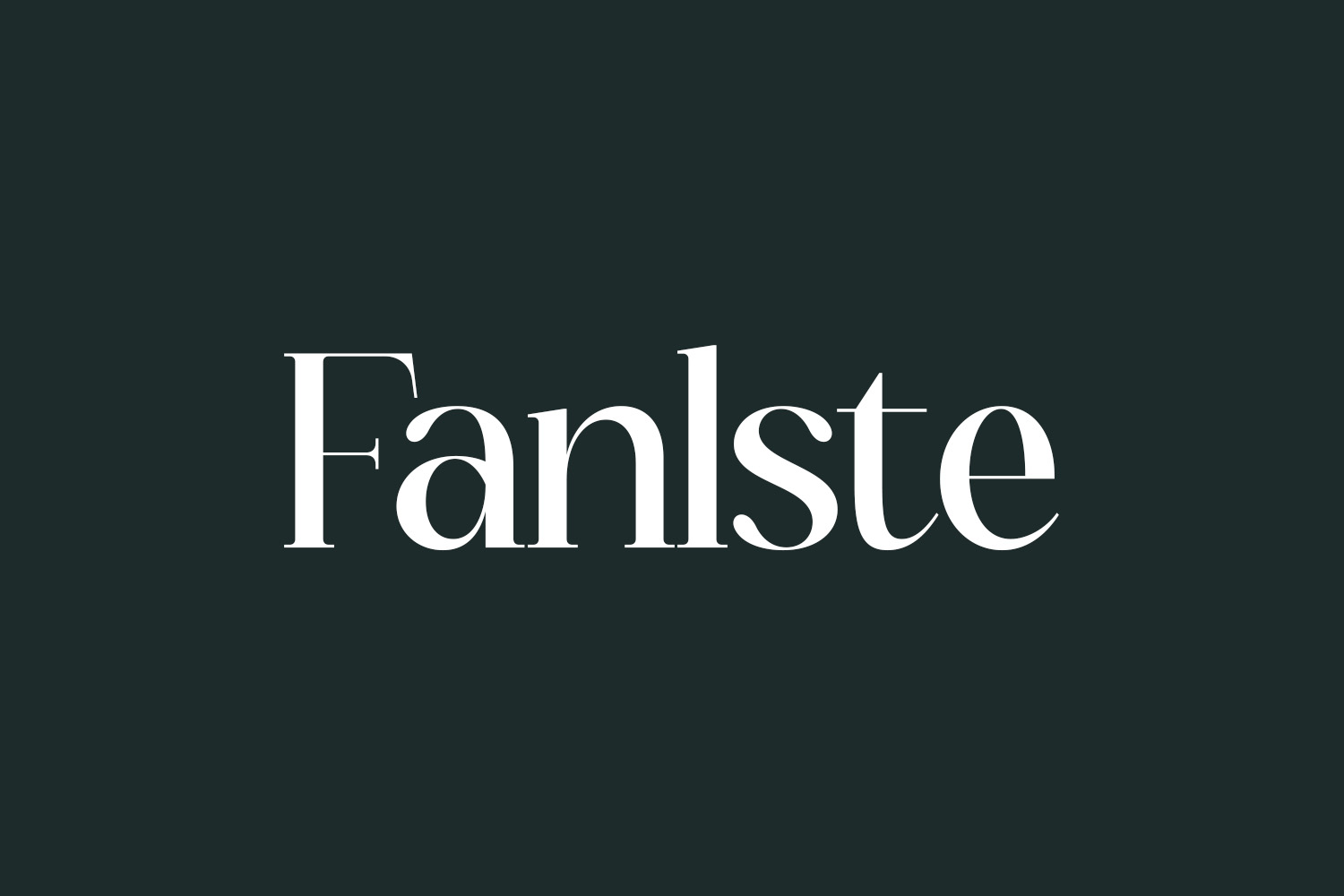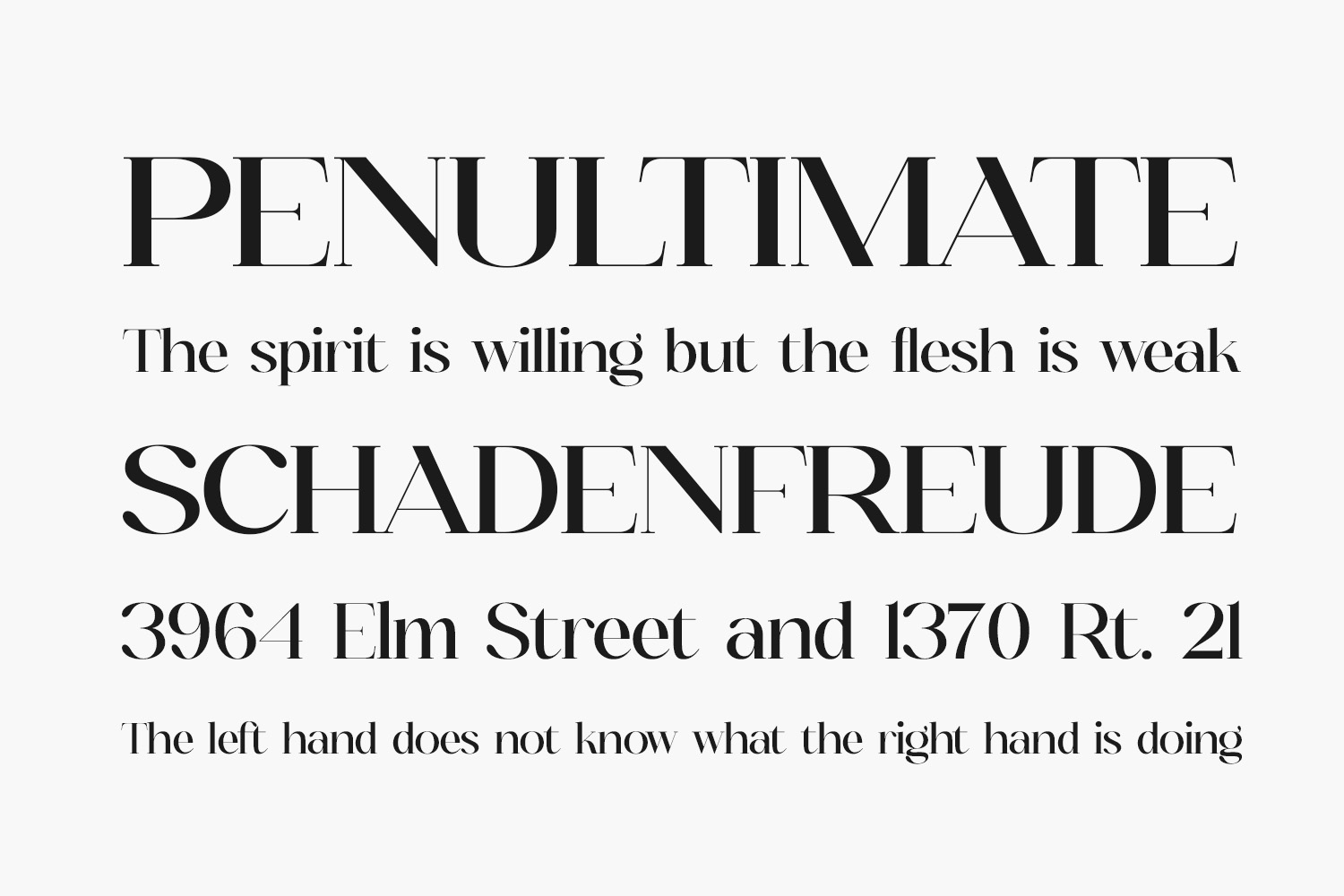
Experience the sophistication and charm of Fanlste Free Font, a stylish serif font with a touch of modern elegance. Tailored for luxury and feminine projects, this font is an ideal choice for creating chic and contemporary designs. Fanlste Free Font is free for personal use only. Please purchase the full version for commercial use.